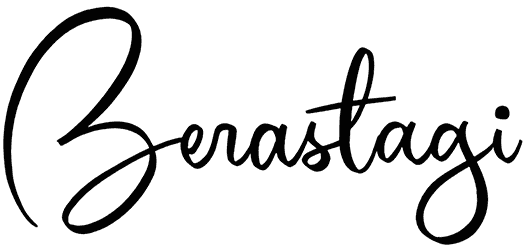
Love Earth Font
Create one delicate typography by utilizing Love Earth which is an elegant handwritten script font! It offers slim characters that provoke ideas of femininity. Across-the-board it’s very cute and has a spectacular signature design, plus your typography will look creative with the cursive style.
This Love Earth font also delivers friendly vibes as it’s hand-drawn. It doesn’t contain a set of numbers or symbols, unfortunately. It’s a perfect selection for artistic design, posters, clothing, branding, and books.
Designed by: VinType